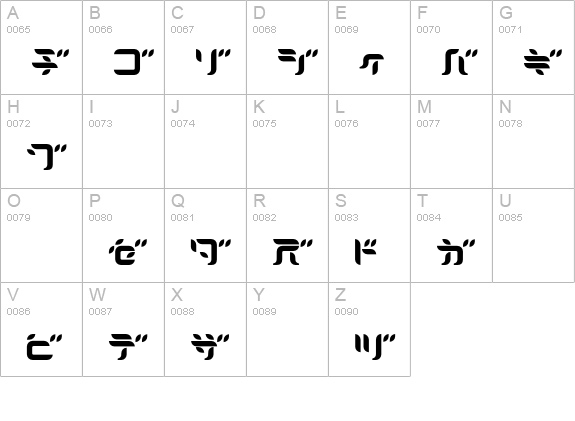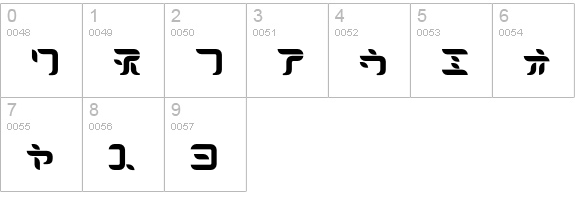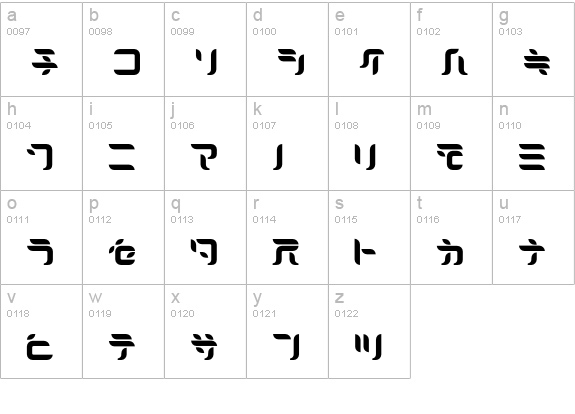
Dorisorange-Katakana font is a stunning display font that combines the elegance of traditional Japanese Katakana characters with a modern twist. This unique typeface is perfect for adding a touch of sophistication to any design project, whether it's a logo, branding, or poster. With its sleek lines and stylish curves, Dorisorange-Katakana font exudes a sense of creativity and innovation. The characters are carefully crafted to ensure readability while maintaining a high level of visual appeal. Best of all, Dorisorange-Katakana font is completely free to download at FontsMarket.com. This means you can add this beautiful typeface to your collection without breaking the bank. Don't miss out on the opportunity to enhance your designs with this eye-catching and versatile font. Download Dorisorange-Katakana today and let your creativity shine!